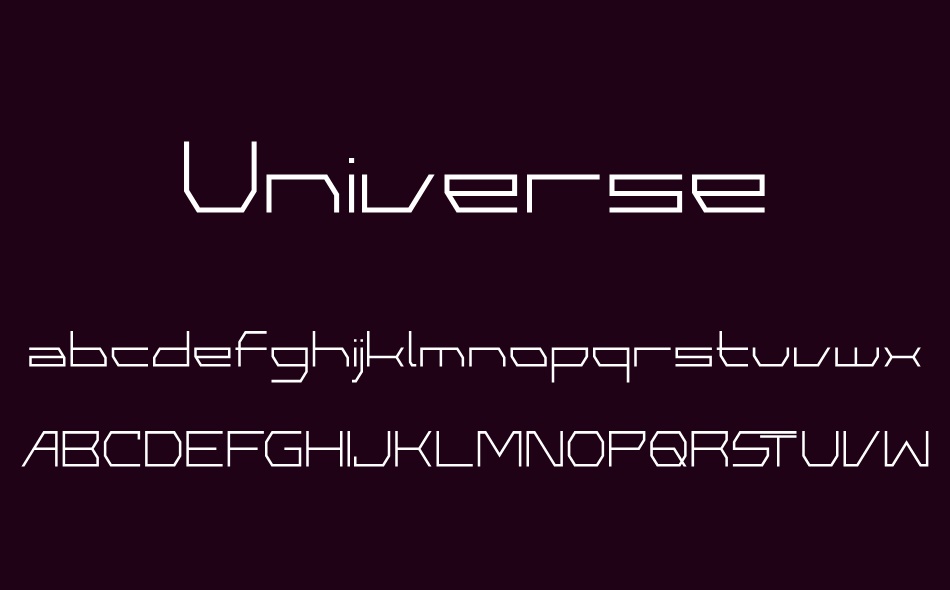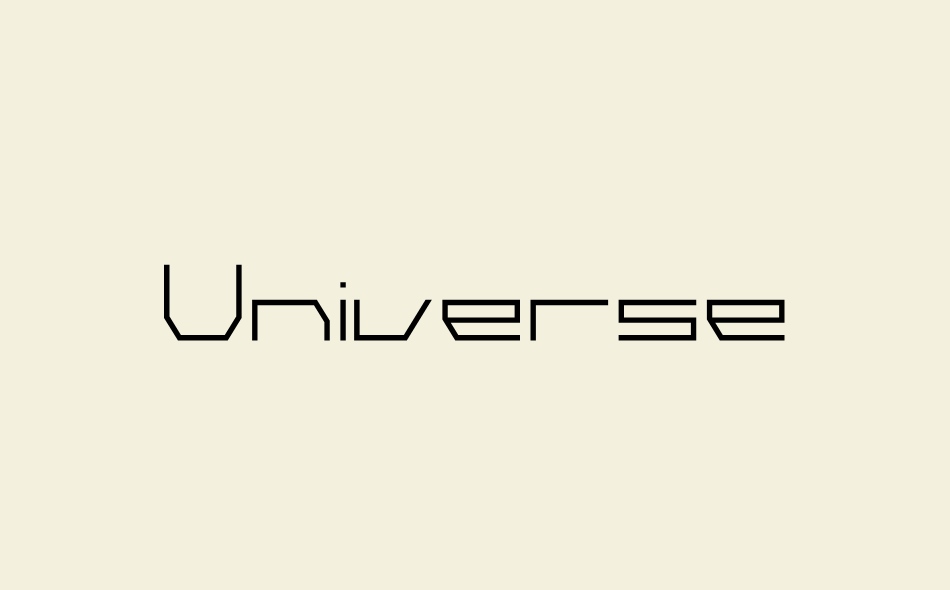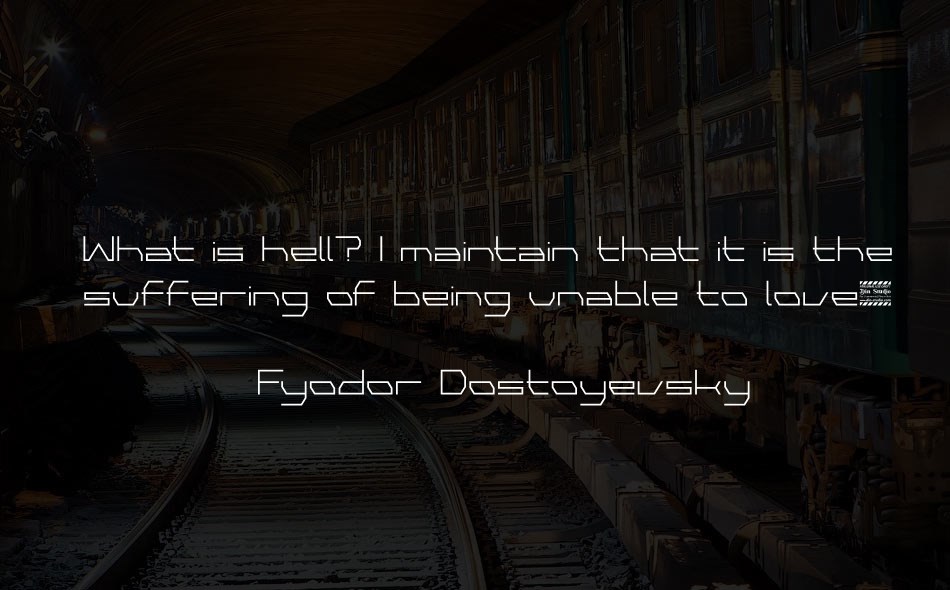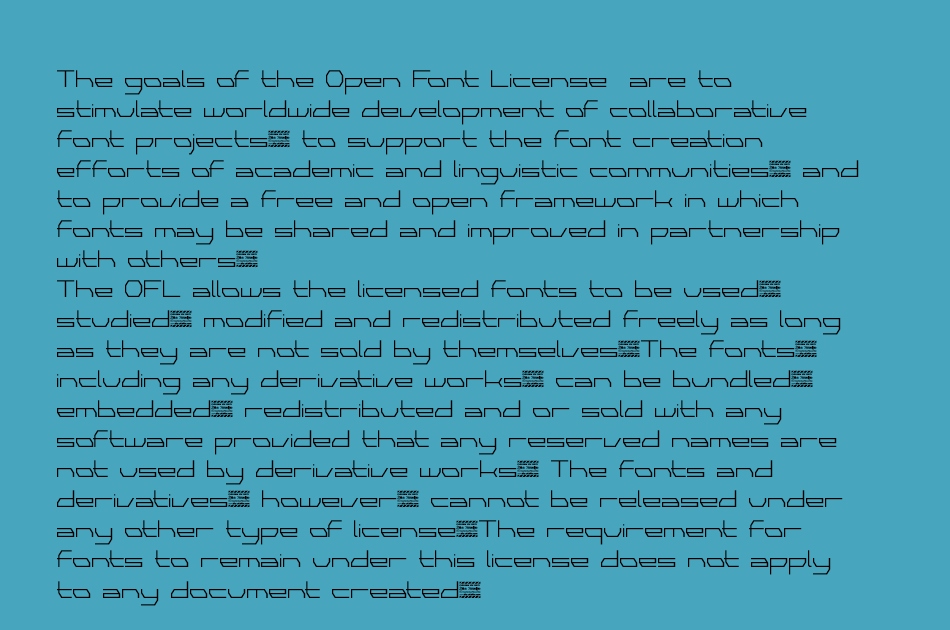
Universe font
Introducing Universe A Futuristic Display Font
This typeface with futuristic style looks very interesting for loads of different projects and promotions. It is perfect to be used on your website, for your social media branding, Pinterest banners, printed products, and more!
Introducing Universe – A Futuristic Display Font
This typeface with futuristic style looks very interesting for loads of different projects and promotions. It is
perfect to be used on your website, for your social media branding, Pinterest banners, printed products,
and more!